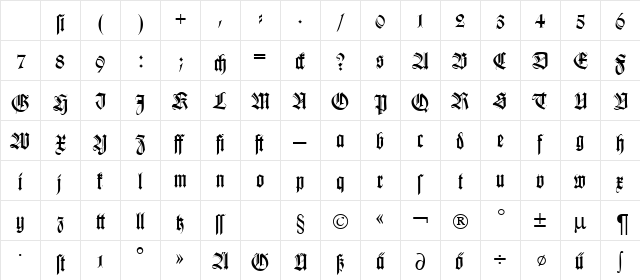
Complete KochFraktur Regular glyph index. Displaying only characters natively supported by KochFraktur Regular font.
KochFraktur draws on the rich tradition of blackletter calligraphy, with dense, angular strokes that evoke medieval manuscripts and old-world craftsmanship.
Font Pairing: Pair with a clean neutral sans-serif for body copy to let KochFraktur's character lead without overwhelming the composition.
Pro Tip: Reserve KochFraktur for display and logo use - pair it with a clean sans-serif for body copy to prevent the composition from feeling oppressive.